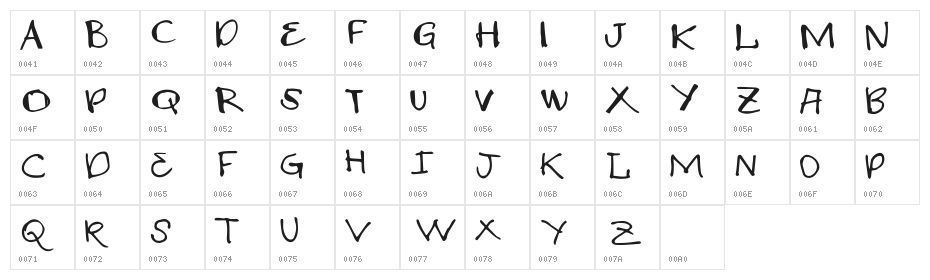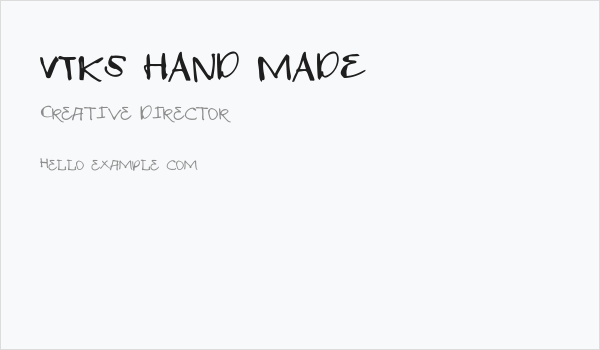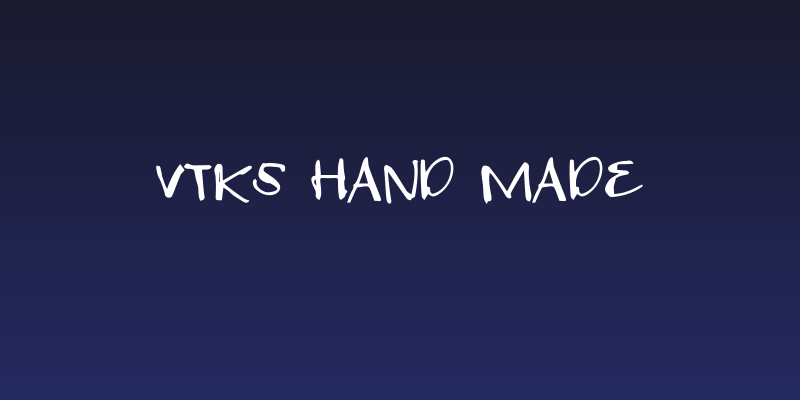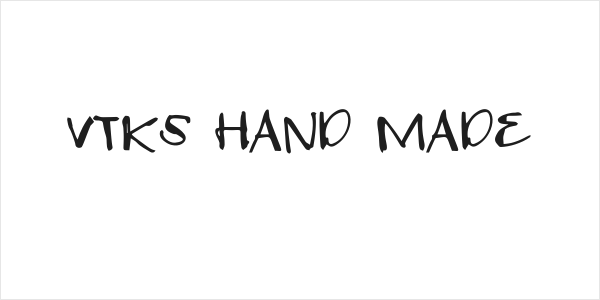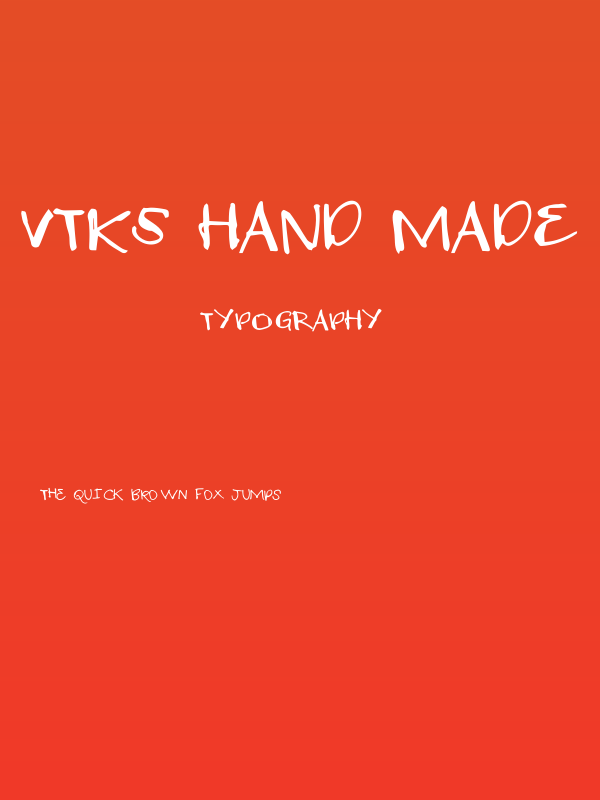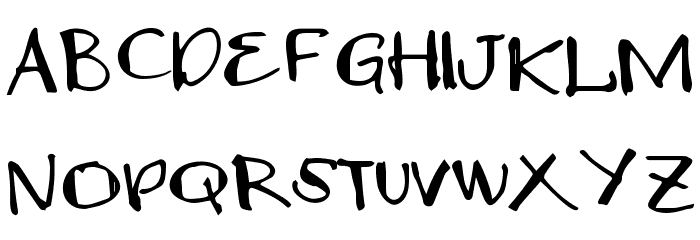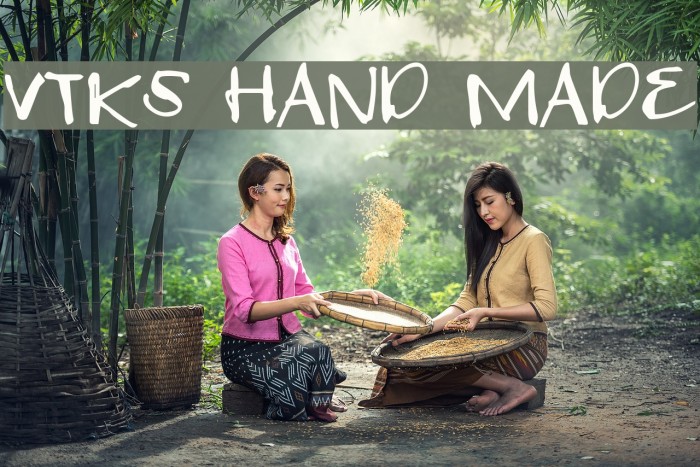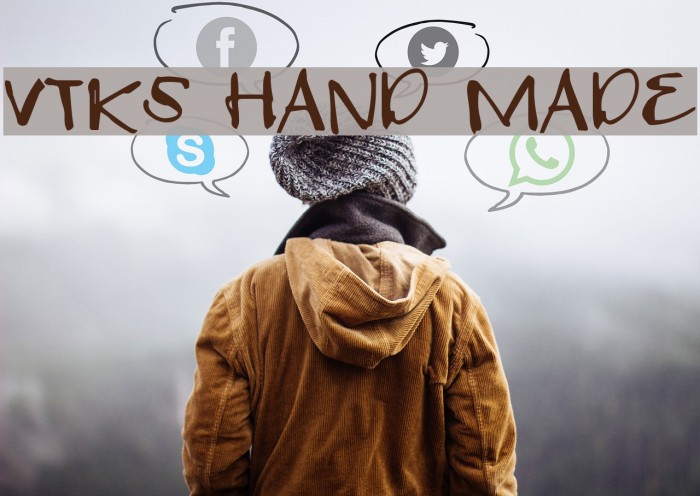
VTKS HAND MADE Font
VTKS HAND MADE Description
This font exudes a dynamic and artistic flair, characterized by its bold, hand-drawn appearance. The letters are crafted with a sense of spontaneity, featuring irregular strokes and varying thickness that add to its handmade aesthetic. The uppercase letters are particularly expressive, with some characters extending beyond the baseline, creating a lively and energetic feel. The lowercase letters maintain this playful style, with a slightly more compact form. The numbers and special characters are equally expressive, maintaining the overall theme of creativity and individuality. This font is perfect for projects that require a personal touch and a sense of artistic freedom.